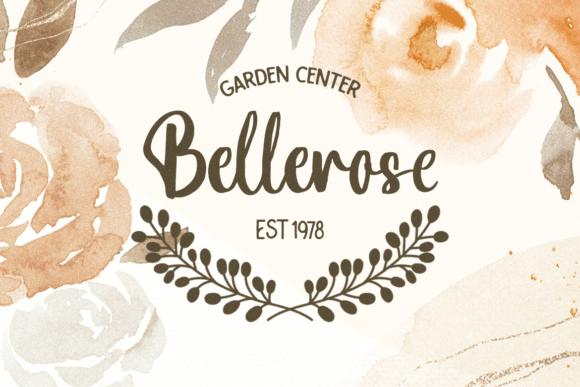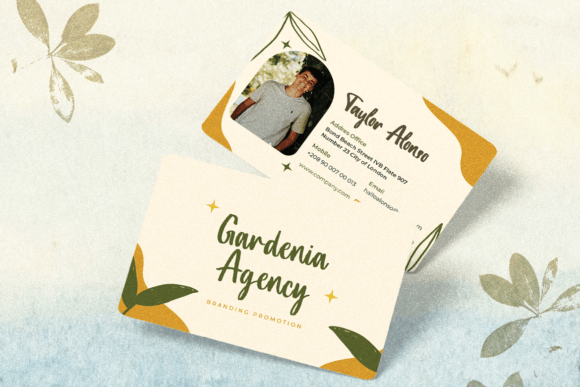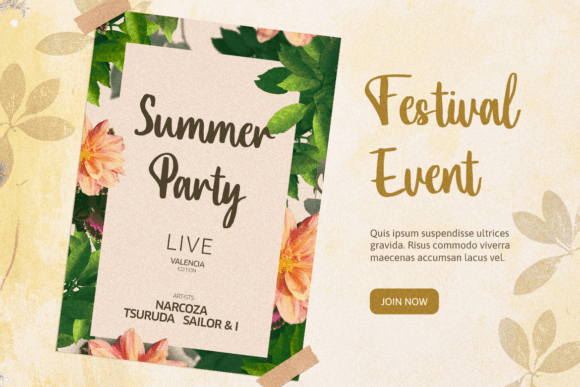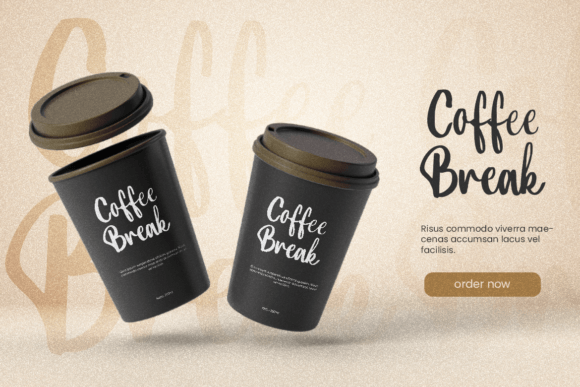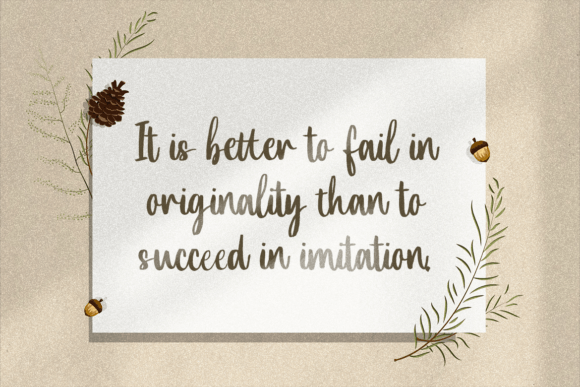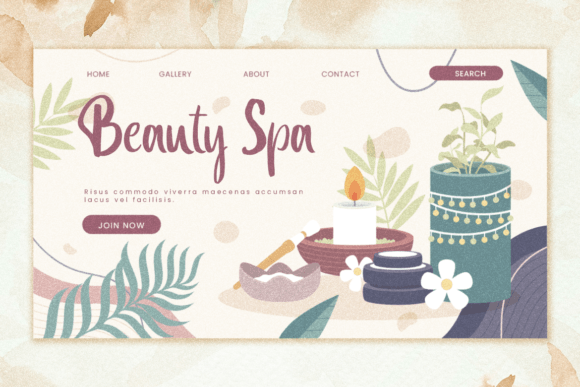
Love at First Sight: Unveiling the Magic of the Bottanical Font
As designers, we’ve all been there – staring at a blank canvas, searching for the perfect font to bring our creative vision to life. And then, it happens – a spark of inspiration strikes, and we stumble upon a font that speaks directly to our hearts. For me, that moment came when I discovered the Bottanical Font, a stunning script font that embodies the essence of love and romance.
This enchanting font is more than just a pretty face; it’s a powerful tool for designers looking to add a touch of elegance and sophistication to their designs. With its flowing strokes and delicate curves, the Bottanical Font is perfect for creating wedding invitations, love letters, and other romantic designs that require a touch of glamour and style.
Bottanical Font Key Features
- Unique Characteristics: Bottanical Font features a unique blend of modern and vintage elements, with intricate details and ornaments that evoke the natural world.
- Font Style: The font is available in a single style, with a mix of uppercase and lowercase letters, numerals, and punctuation marks.
Bottanical Font Review
I recently had the chance to work with the Bottanical Font, and I must say it’s a unique and elegant addition to any design project. ✨ The font’s botanical-inspired design is perfect for nature-based or eco-friendly brands, and its versatility makes it suitable for a wide range of applications, from logos to body text.
- The font’s intricate details and organic feel are truly captivating, making it a great choice for designers looking to add a touch of sophistication to their designs.
- The Bottanical Font comes in a range of weights and styles, allowing designers to easily customize the look and feel of their project.
- The font is highly legible, even at small sizes, making it perfect for use in a variety of contexts.
However, there are a few limitations to consider: ⚠️ The font’s intricate details can make it difficult to read at very large sizes, and the organic feel of the font may not be suitable for all design projects.
Overall, I would give the Bottanical Font 4 out of 5 stars. While it’s not perfect, its unique design and versatility make it a great choice for designers looking to add a touch of elegance to their projects. With a little creativity and experimentation, I’m confident that the Bottanical Font can be a valuable addition to any design toolkit.
Use the Bottanical Font for designs that require elegance and sophistication, such as wedding invitations, business cards, and branding materials.
Experiment with different font sizes and styles to create visual interest and emphasis.
Pair the Bottanical Font with other elegant fonts or serif fonts for a classic look.